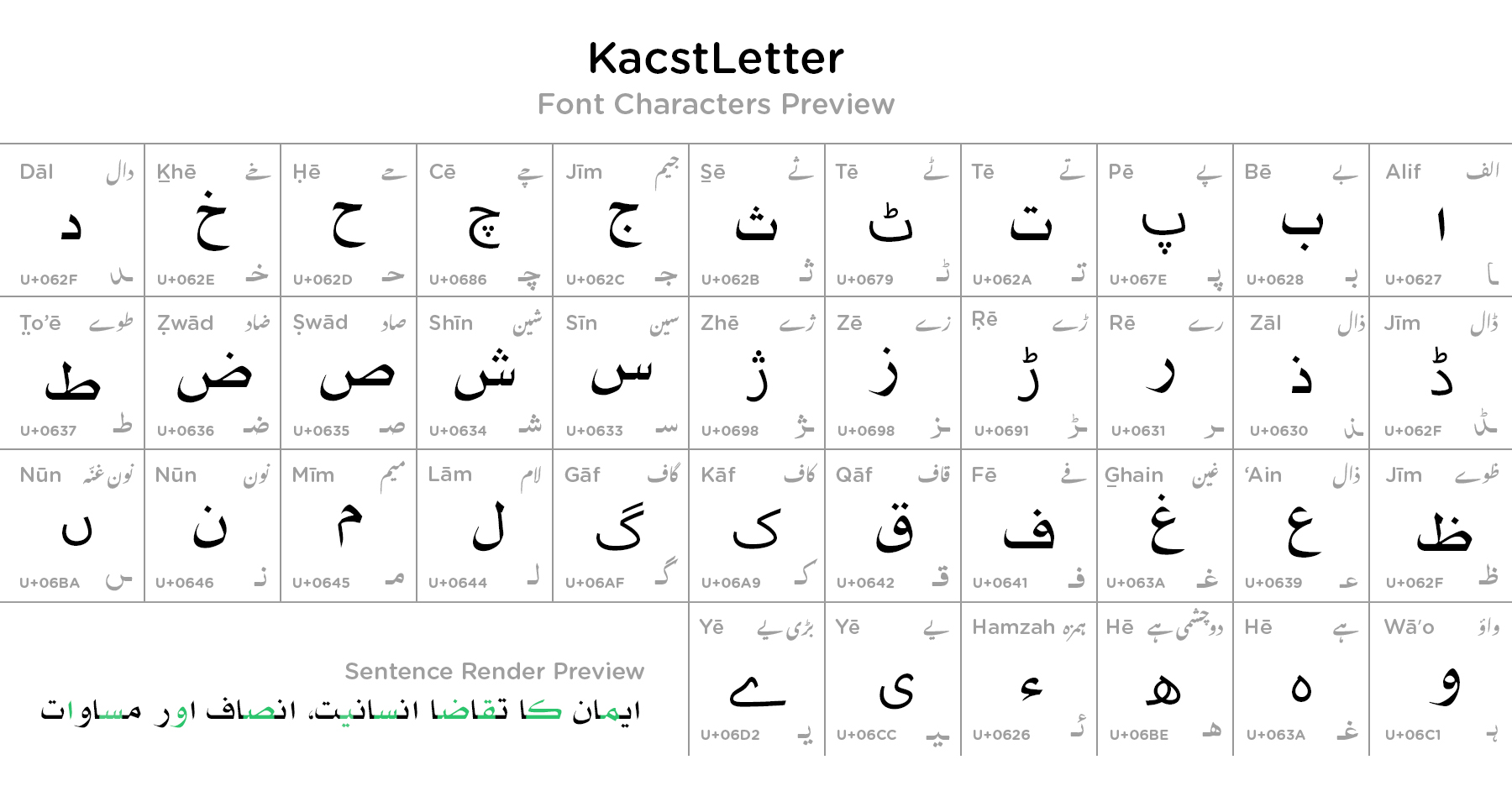
KacstLetter is a Qalam writing Arabic font released under the GPL license and developed by KACST (King Abdulaziz City for Science and Technology) and URW Design and Development. Inspired by the Naskh script with modern influences, it features plain, wide, monospaced letters in a Qalam writing style, characterized by thick letterforms. With impactful strokes and a changing thickness, the font offers a clean and clear appearance, enhancing legibility on screens, even at small sizes. Its simple and spacious letters make it suitable for both short and long texts, catering to various design needs. Released in 2017, KacstLetter comprises 445 characters and 459 glyphs, ensuring compatibility with Urdu, Arabic, Latin, Persian, and more languages.